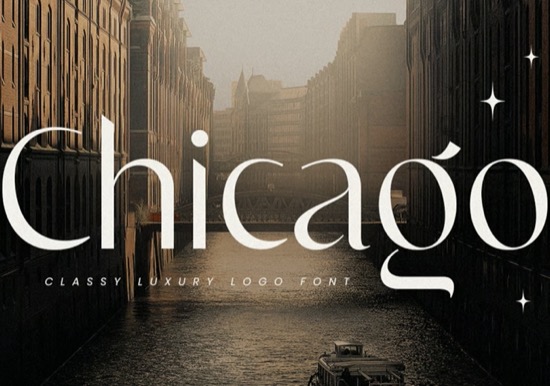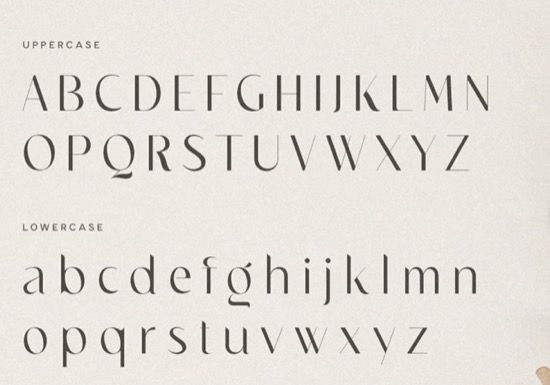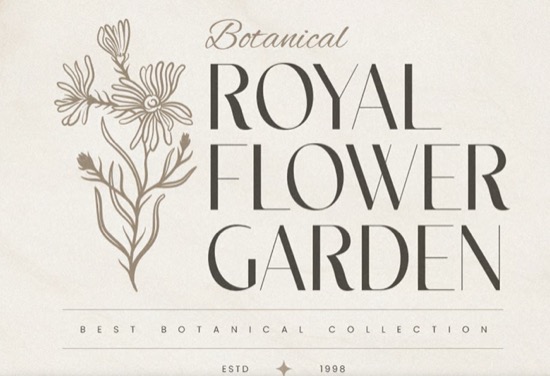
Chicago is perfect for a vast large of creative designs. It’s a display sans serif font that effortlessly blends a simple vibe with modern quality., the epitome of luxury and cinematic elegance in a Sans Serif font. Perfectly designed for sophisticated and high-end designs, Chicago brings a touch of class and refinement to any project.
Chicago Font Features:
- Luxury Design: A luxurious sans serif style ideal for high-end and sophisticated projects.
- Cinematic Appeal: Perfect for movie titles, movie posters, and dramatic visual content.
- Multipurpose Use: Suitable for branding, editorial layouts, elegant invitations, etc.
- Inspirational Insights: Includes sample designs to inspire your creative projects.
Elevate your designs with Chicago , the luxury serif font that exudes sophistication and style. Whether for high-end branding, film projects, or elegant typography, Chicago adds a timeless and refined touch to your work. Make a statement with Chicago and let your designs shine with unmatched elegance.